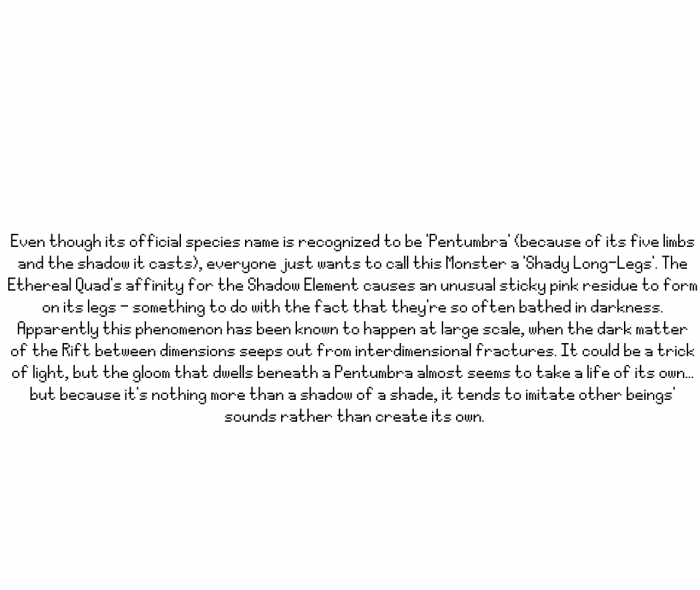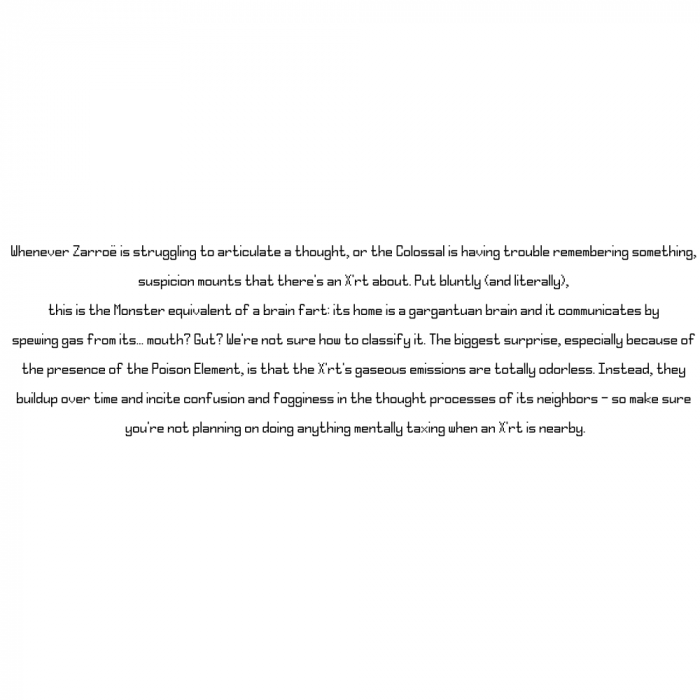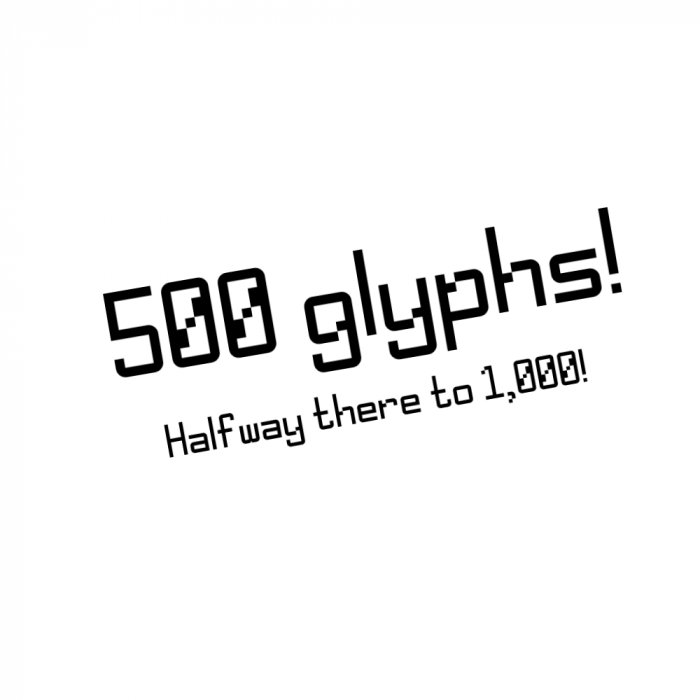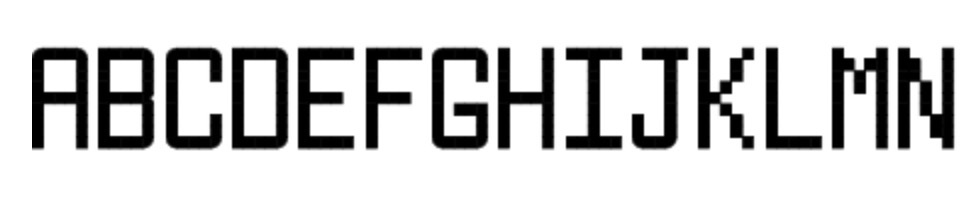
sample text:
no, this font isn't discontinued, i'm taking a break of it
finally this font has been updated after a long break
v1.0.2 is finally here
if more than 65,535 glyphs were possible, then i will rename it "THE ULTIMATE UNICODE FONT".
you really can't
@digitalio-2 depends on motivation
@digitalio-2 i know that more than 65,535 glyphs is not possible, but i hope in the future more than 65,535 glyphs will be possible.
i'm pretty sure it won't due to certain limits
wait seriously??? i mean like i'm trying to make a family-font (round digitalio) with compatibility for latin-ext-A
it's back
i'll turn this into an HD font, except some strokes which will stay pixelated
another sample
my god 500 glyphs is just basic latin, latin suplement-1 and latin ext A-B
@lucapri it's a mini-milestone
yea and i got 1k characters (i deleted it and forgor why)
it’s back again
updated fi, fl, ffi, ffl and st
almost completing latin ext.-B!
also updated ff.
i need to focus on fixing glyphs... 😴
i may remake my deleted font so that font will be easier to expand
i have finally fixed the letters with diacritics since they looked awful
completed google fonts basic ;)
latin extended-B is finally complete!
OH MY GOD, WHY ARE THE LETTERS K, M AND N PIXELATED?!
Armenian and Cyrrilic, please?
@NewCurvenBig unfortunately i do not know how to make HD diagonal lines, so i’ll stay them as pixelated...
@NewCurvenBig sure
moreover, i will also add greek and coptic, IPA extensions, and spacing modifier letters :)